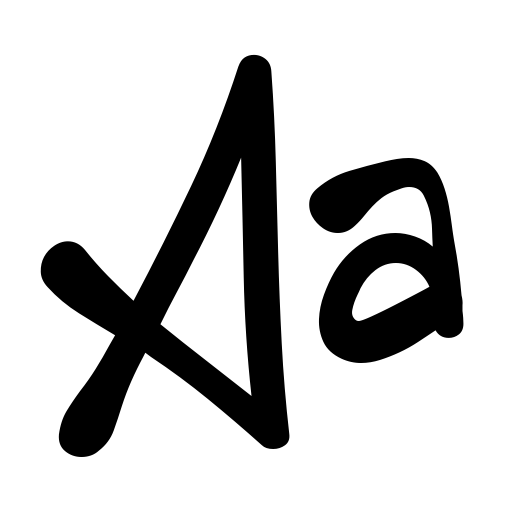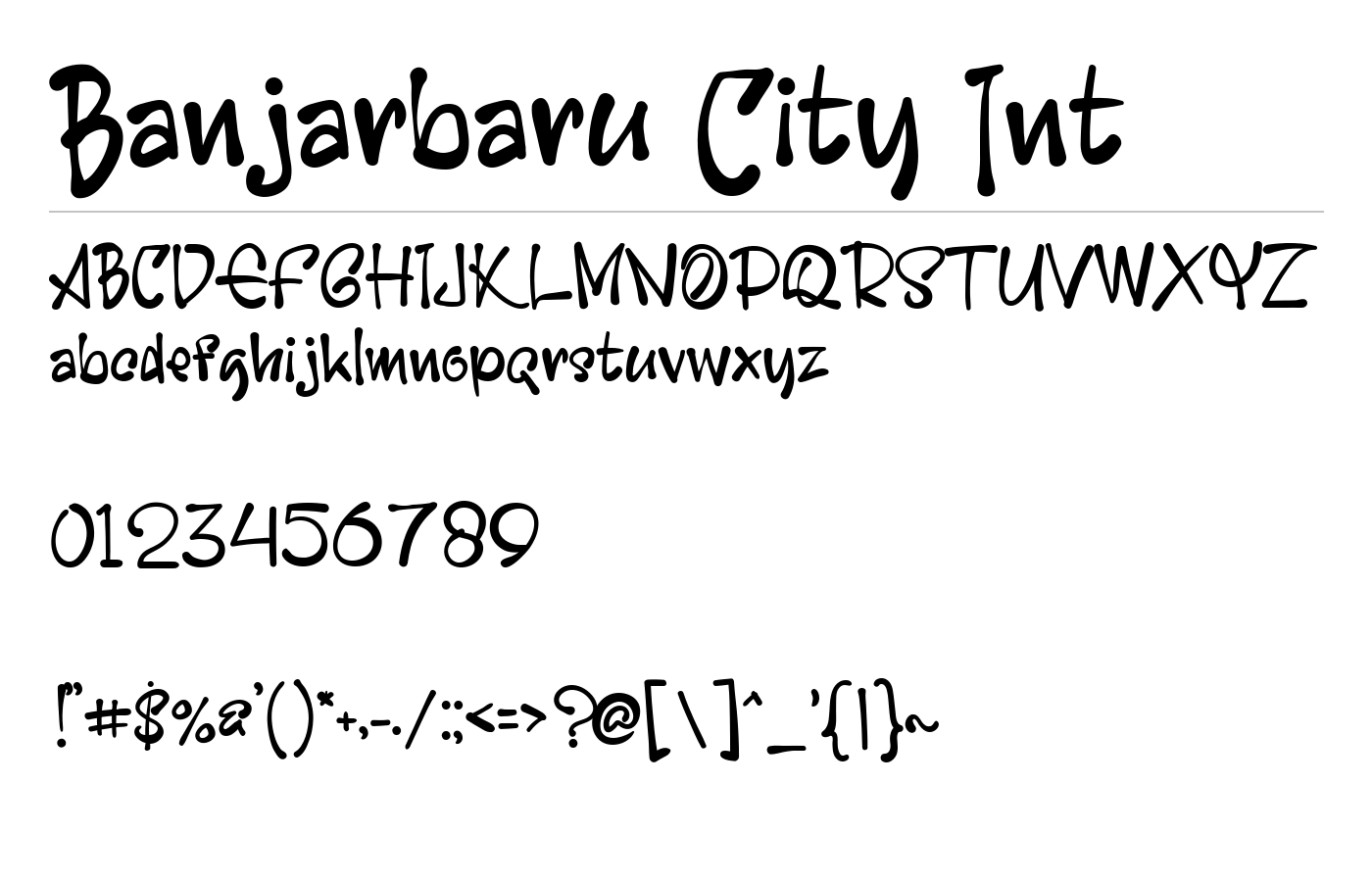
Banjarbaru City Int is a playful and casual handwritten sans serif font featuring lively, irregular strokes that give it a friendly, approachable feel. Its moderate weight and slightly condensed letterforms with high x-height make it well-suited for informal and creative projects such as posters, kids’ materials, and branding that seeks a personal touch. This font adds a warm, expressive personality that works best for headlines or short texts where character and charm are desired.
Banjarbaru City Int Font